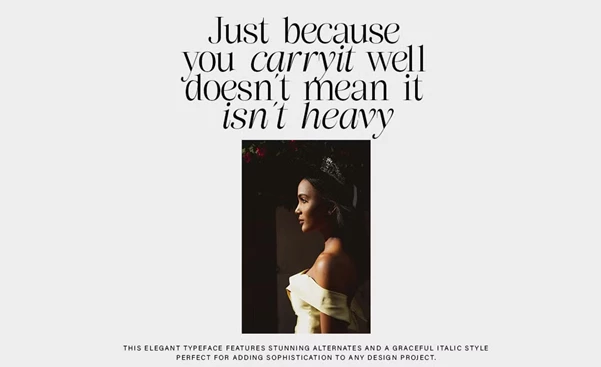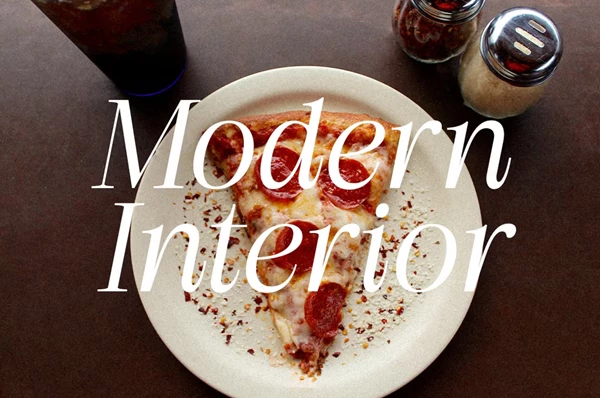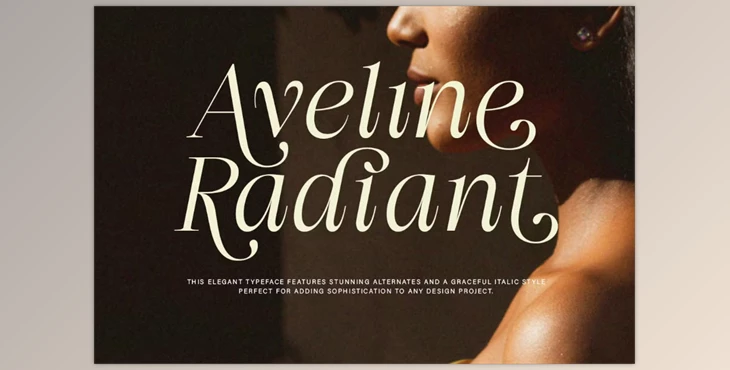
Aveline Radiant Font:
Aveline Radiant is a remarkable serif typeface explicitly developed to enhance creative projects with its timeless beauty and sophistication.
Helping in all kinds of branding, editorial designs, wedding invites and identities, this font sublty stylizes high-end visuals with stunning stylistic accents and italics. Crafted for designers who treasure elegance and versatility, Aveline Radiant is unforgettable.
"Aveline Radiant Font" Samples: